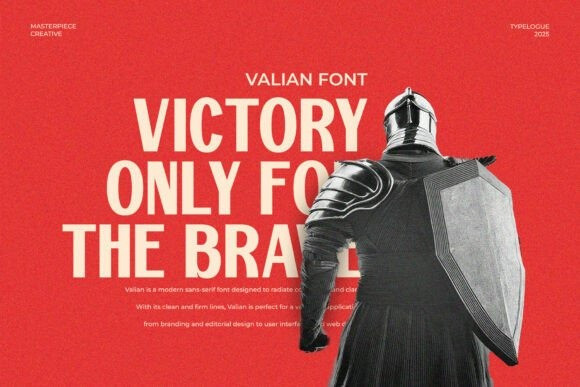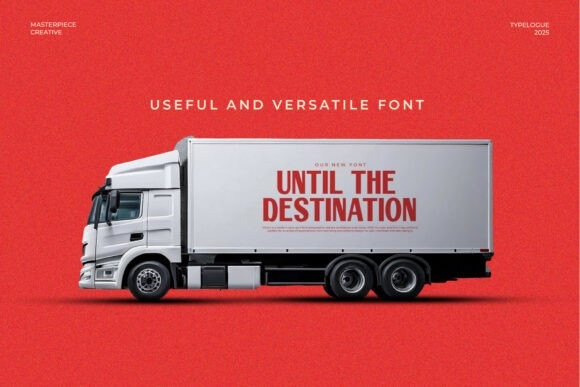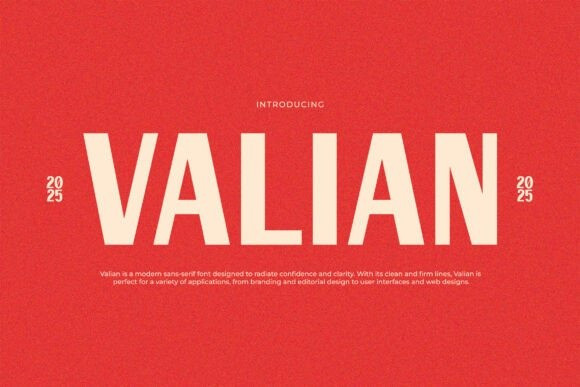
Valian Font
Valian Font, is a bold and modern sans-serif typeface designed to exude confidence and clarity. Its clean, sharp lines make it perfect for creating impactful designs that stand out, whether in branding, editorial layouts, or digital interfaces. Valian strikes the perfect balance between minimalism and strength, making it versatile for a wide range of creative projects, from logos to websites and marketing materials. If you’re looking for a typeface that communicates professionalism and power, Valian is your ideal choice.